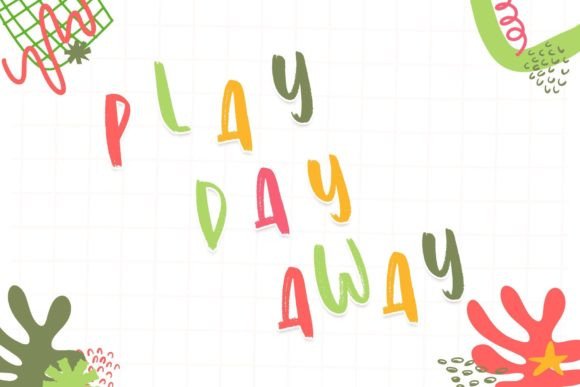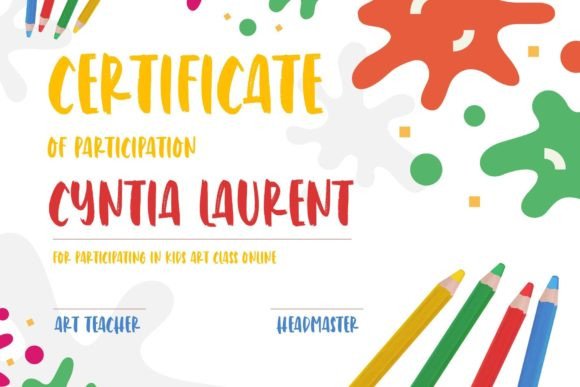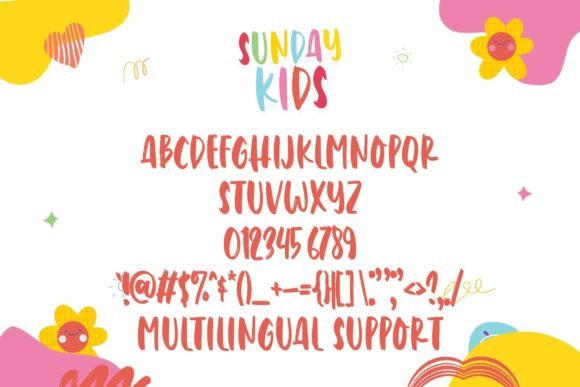
Sunday Kids Font
About Sunday Kids Font
Sunday Kids is a playful handwritten font designed to bring a casual and childish charm to your designs. Perfect for children-related and quirky projects, this font adds a whimsical touch that enhances the overall playfulness of your creations. Whether you’re working on children’s book illustrations, crafting invitations for a kid’s birthday party, or creating any design that calls for a lighthearted and fun vibe, Sunday Kids is the ideal choice.
The font’s casual and handwritten style makes it easygoing and approachable, capturing the carefree spirit of childhood. Its playful nature adds a delightful touch to your projects, making them visually appealing and engaging for a younger audience.
Sunday Kids allows you to infuse creativity into your designs, making it a valuable tool for crafting unique and charming visuals. Whether you’re designing posters, banners, or any other creative materials, this font provides a lively and cheerful atmosphere.
In summary, Sunday Kids goes beyond being just a font; it’s a creative asset that adds a playful and childlike quality to your designs. Let your imagination run wild and create unlimited gorgeous results for children-related projects with this delightful handwritten font.